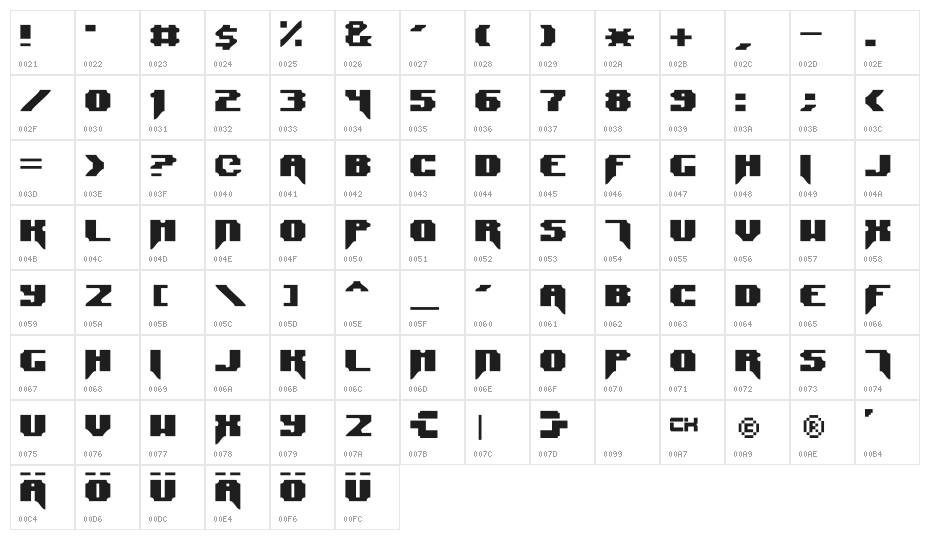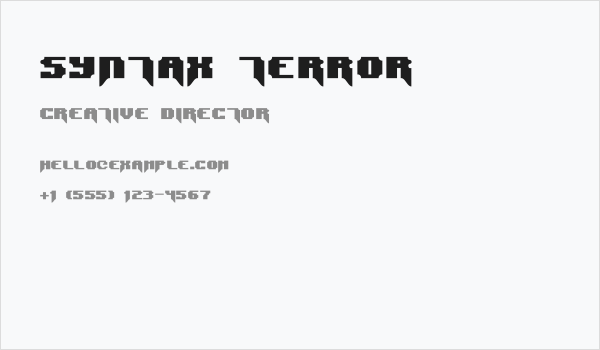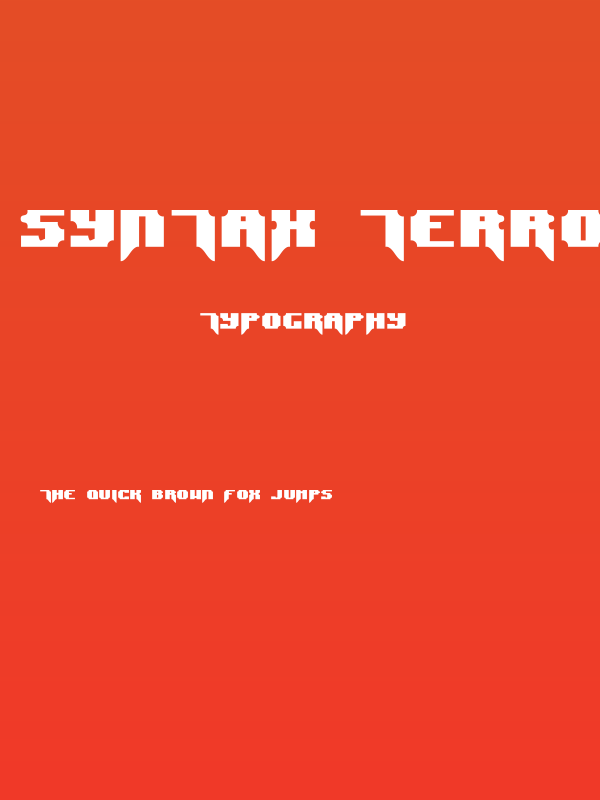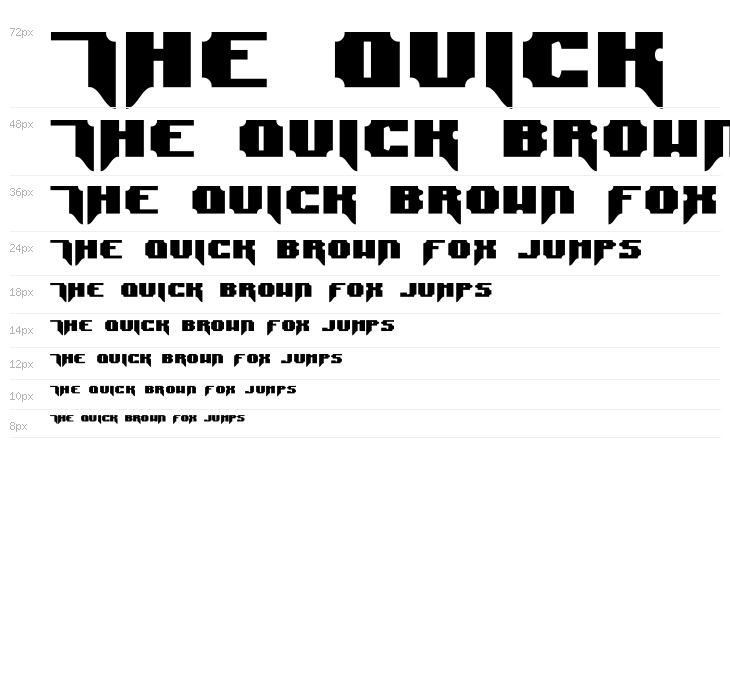
Syntax Terror Font
✎ Pixel
| Categorie | Pixel |
| Stile generale | Futuristic, Edgy |
| Progetti proposti | Ideal for gaming titles, tech branding, sci-fi themes, and edgy graphic designs. |